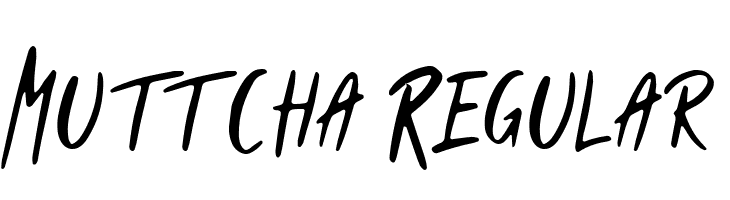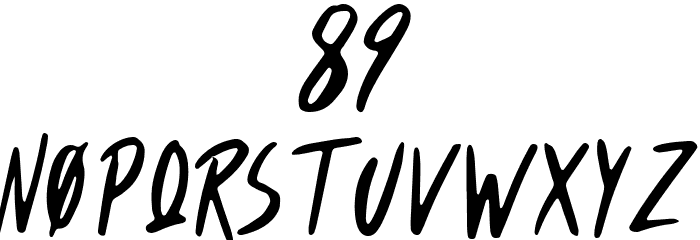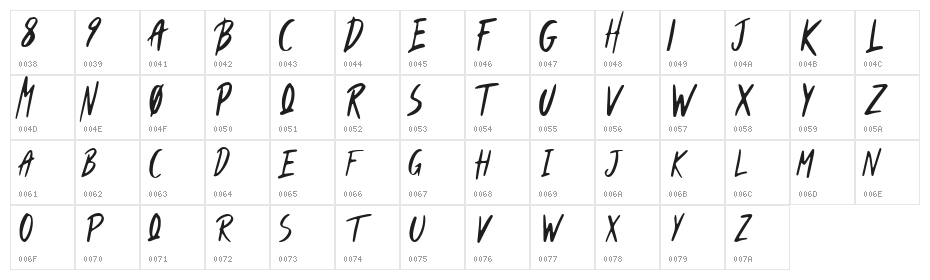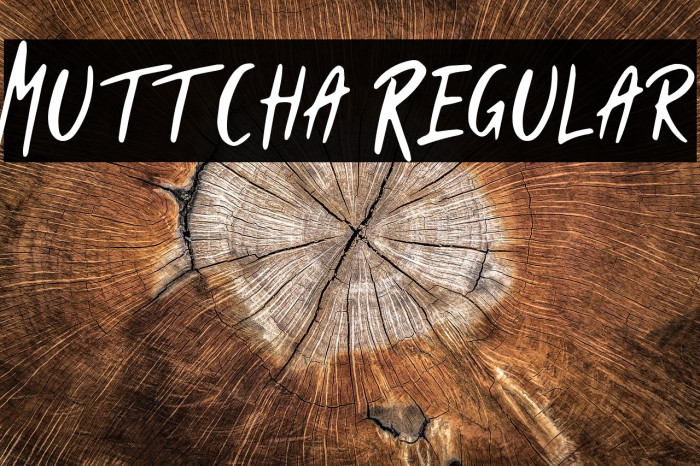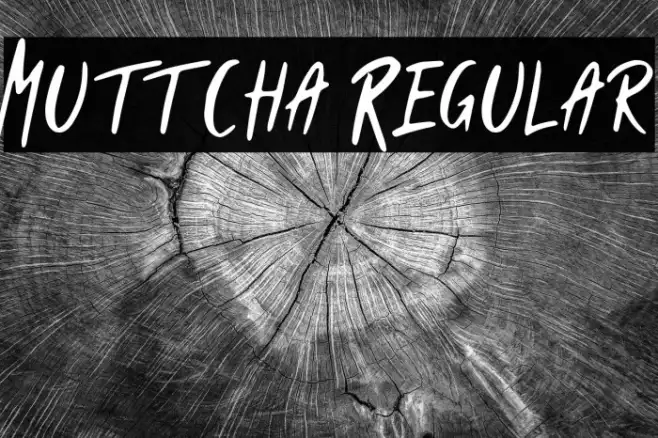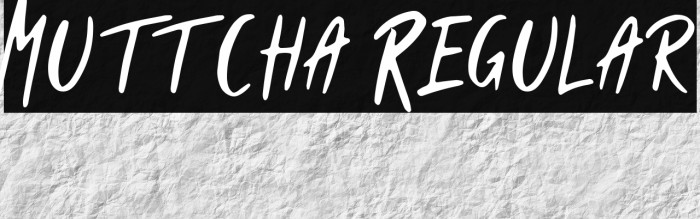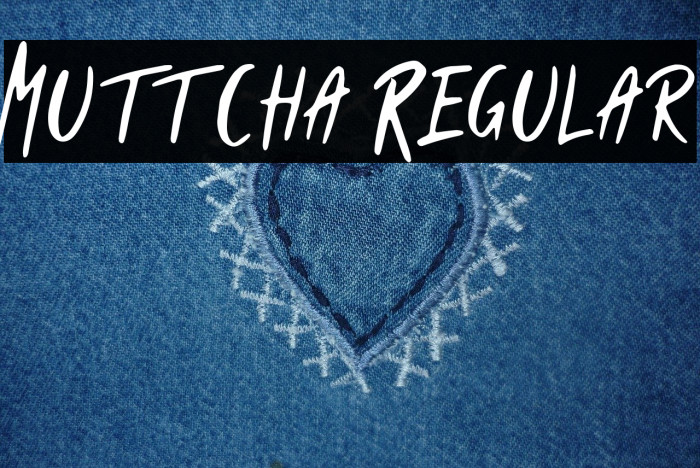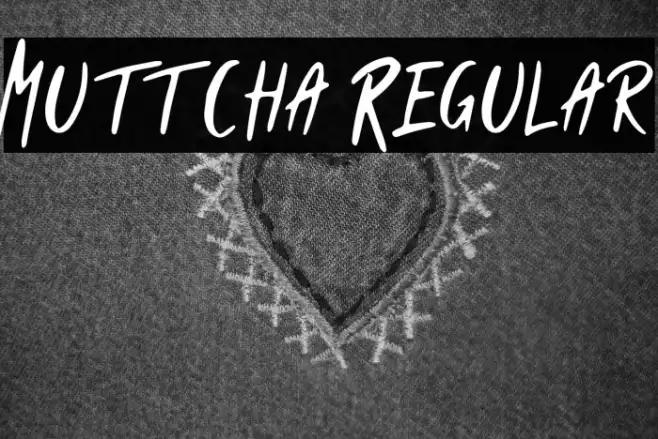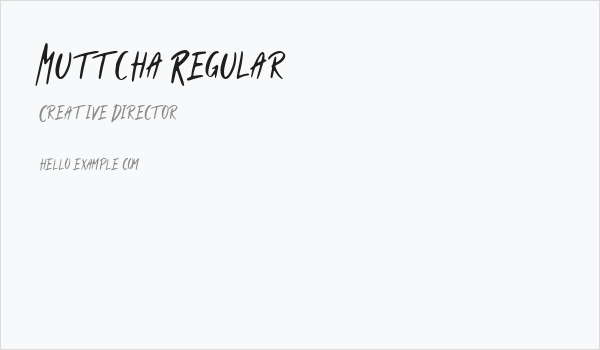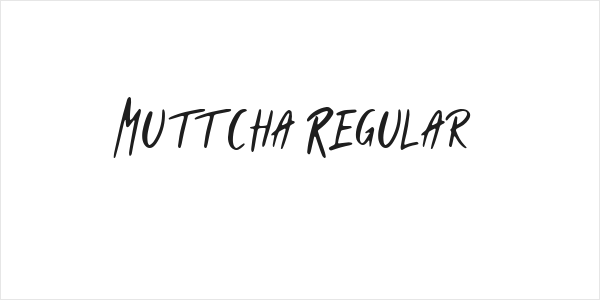
Muttcha Regular Font
Muttcha Regular Description
This font exhibits a dynamic and energetic handwritten style, characterized by its bold and slightly slanted letterforms. The strokes are fluid and expressive, giving it a lively and informal appearance. The uppercase letters are particularly striking, with unique variations in the shapes of certain characters like 'N', 'ΓΛ', and 'P'. The numbers maintain the same playful and bold aesthetic, ensuring consistency across all characters. This font's distinctive style makes it stand out, perfect for projects that require a personal touch or a sense of spontaneity.
| Proposed Projects | Ideal for branding, posters, social media graphics, and creative projects that require a personal and dynamic touch. |